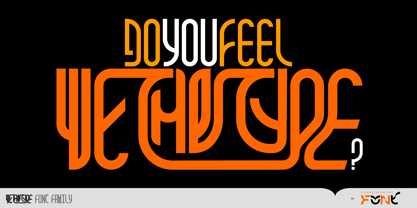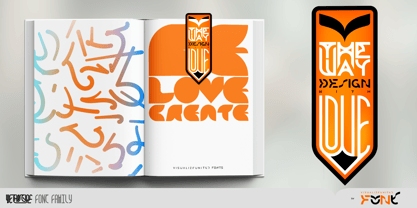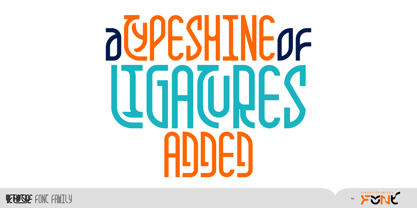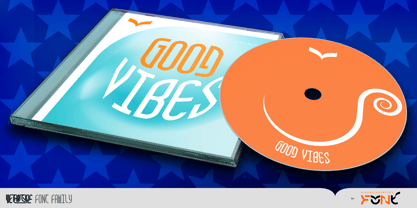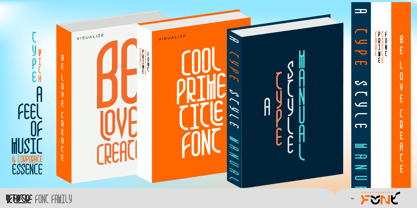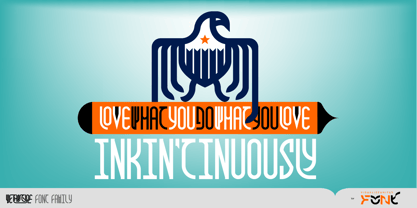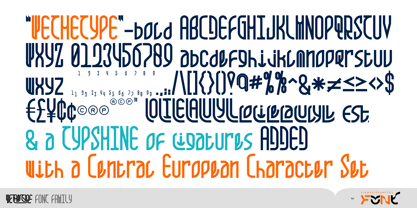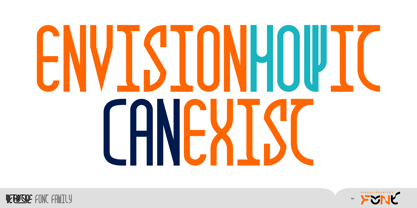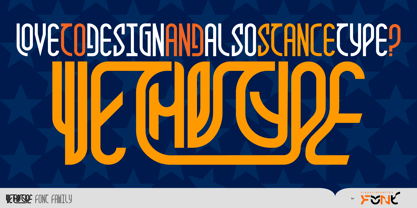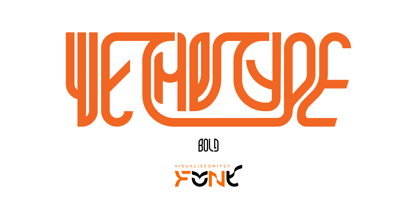
We The Type
The We The Type Font Family was designed by Tony Evreniadis and published by VisualizeUnited Fonts. We The Type contains 2 styles and family package options. More about this family
The "WeTheType" Font Family is a display typeface, in upper and lower case characters, the first of a broader set. Having a corporate and music-like motion feel, it is suggested for titles, books, music albums, posters, ads, logos, TV Spots, Billboards. It is offered in a Latin, Extended Latin, & Central European character set, now in one style: Bold, at this time.
We all envision to be able to create. This being said, Visualize aka Tony Evreniadis, a MultiDisciplinary Designer~Art Director~Founder of VisualizeUnited℠ designs typefaces as a way to contribute with continuous creativity. His fonts are coded as Opentype, in Latin, Extended Latin, Central European & Greek character-set, with ligatures selectively. They are optimally utilized, currently, as display fonts.Thank You!